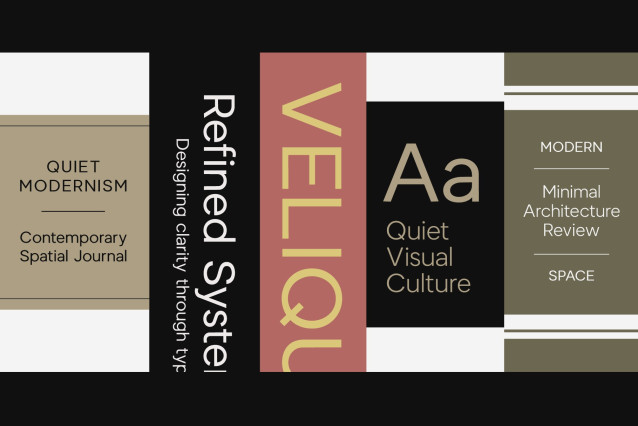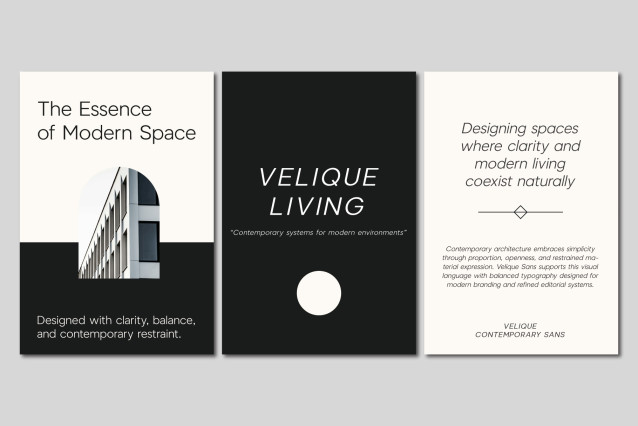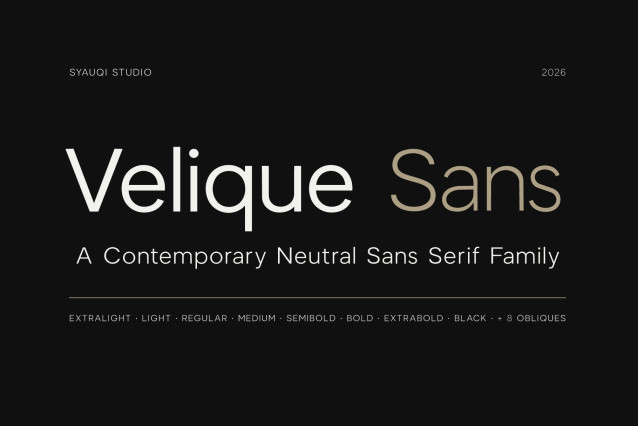
Velique Sans Font
Velique Sans Family — Contemporary Neutral Sans Serif
Velique Sans is a contemporary neutral sans serif designed for modern branding, editorial systems, and refined digital interfaces. Built with calm proportions, balanced spacing, and subtle humanist details, the typeface delivers a clean and sophisticated visual voice while maintaining excellent readability across both display and text settings.
Perfect for contemporary branding, editorial typography, creative agencies, fashion and lifestyle identities, premium packaging, modern websites, and refined visual systems, Velique Sans brings together neutrality, elegance, and versatility in a modern sans serif family designed for today’s visual culture.